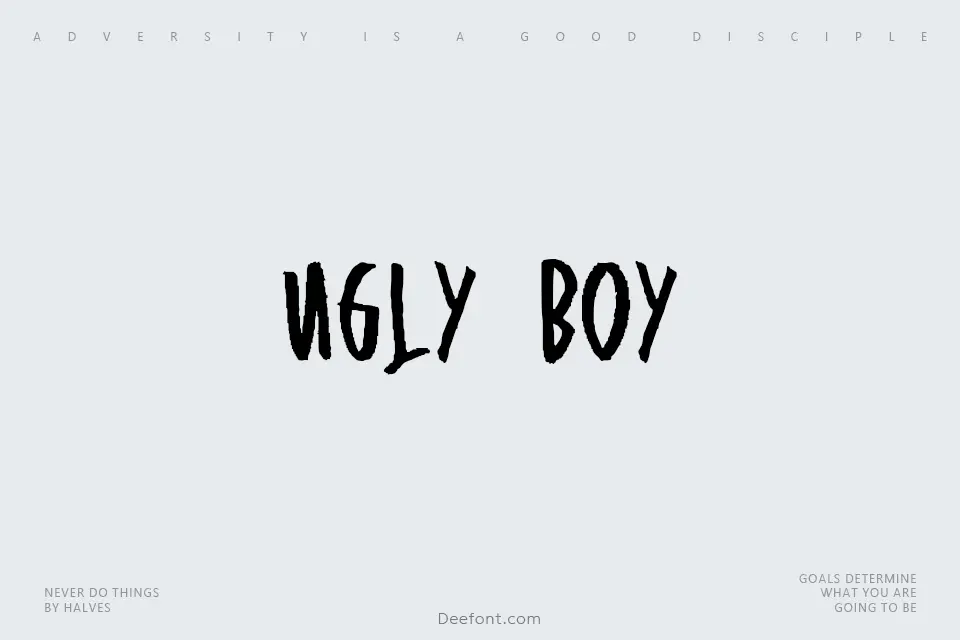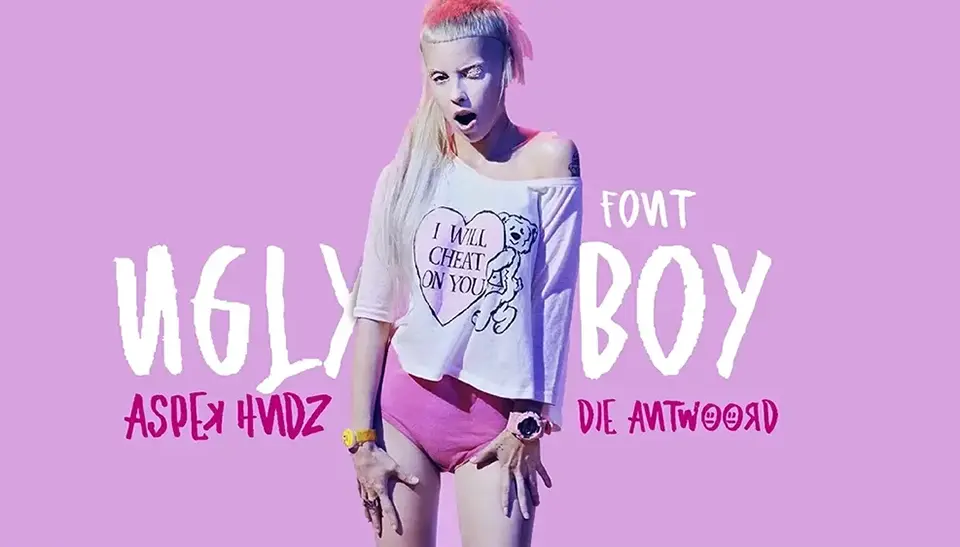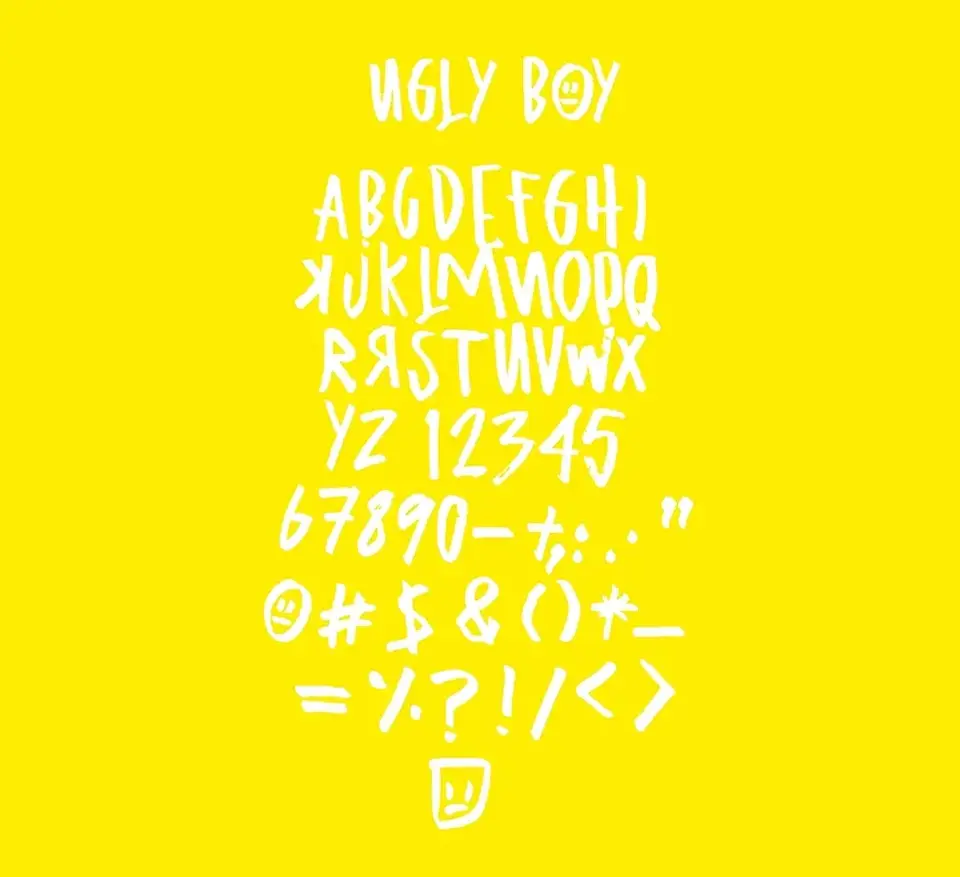
Ugly Boy Font
Ugly Boy is a striking graffiti-inspired script typeface designed by Aspek hndz, featuring bold and edgy letterforms influenced by street art aesthetics. This dynamic font captures the raw energy and rebellious spirit of urban typography, making it ideal for poster designs, album covers, branding projects, and creative compositions that demand visual impact and contemporary flair. With its distinctive character set of 67 glyphs, it delivers powerful visual communication for design-forward applications seeking authentic graffiti sensibilities.